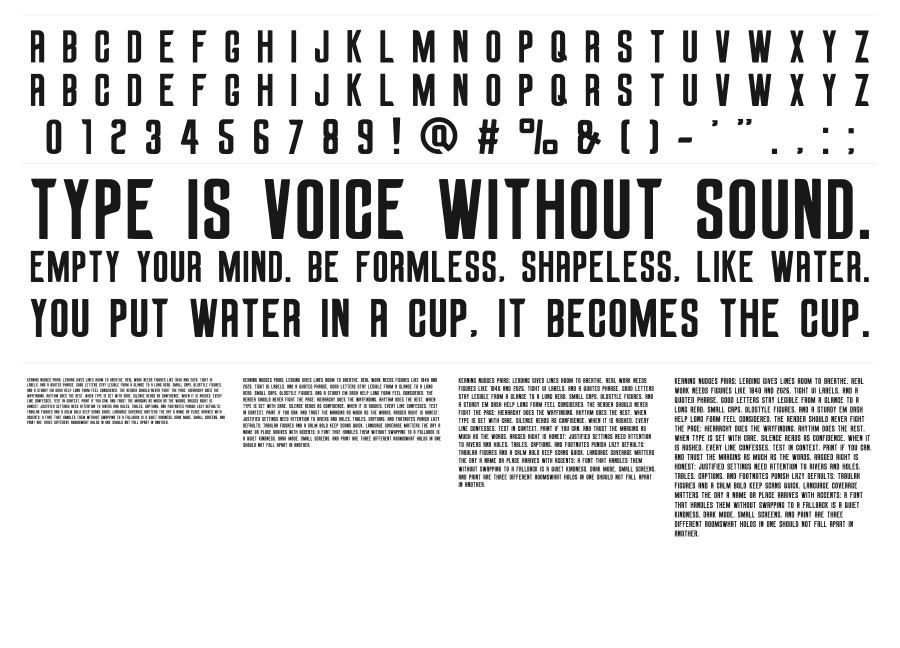
Bugis
Bugis is a heavily condensed bold grotesque with tall narrow proportions and subtle notched cuts at key stroke junctions. Those small incisions give it a distinctive edge that sets it apart from generic compressed sans-serifs. Strong at large sizes for posters, fashion editorial, and brand identities that need weight and character.